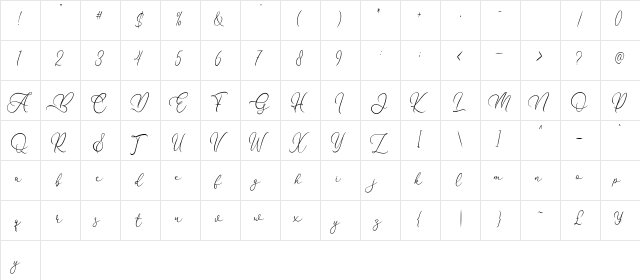
Flanella Regular
Design Context for Flanella Typeface
Flanella is a composed and adaptable typeface that performs quietly and consistently across a wide range of design contexts.